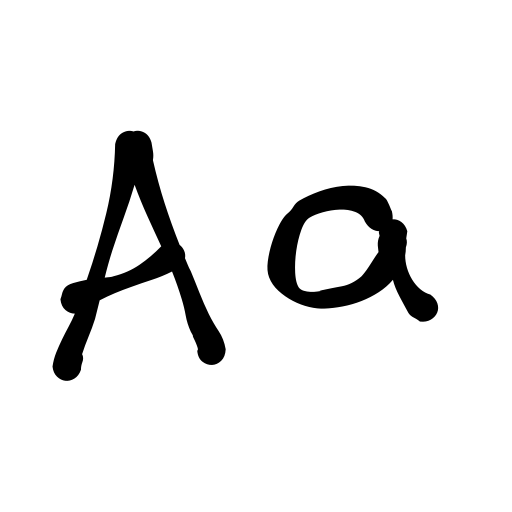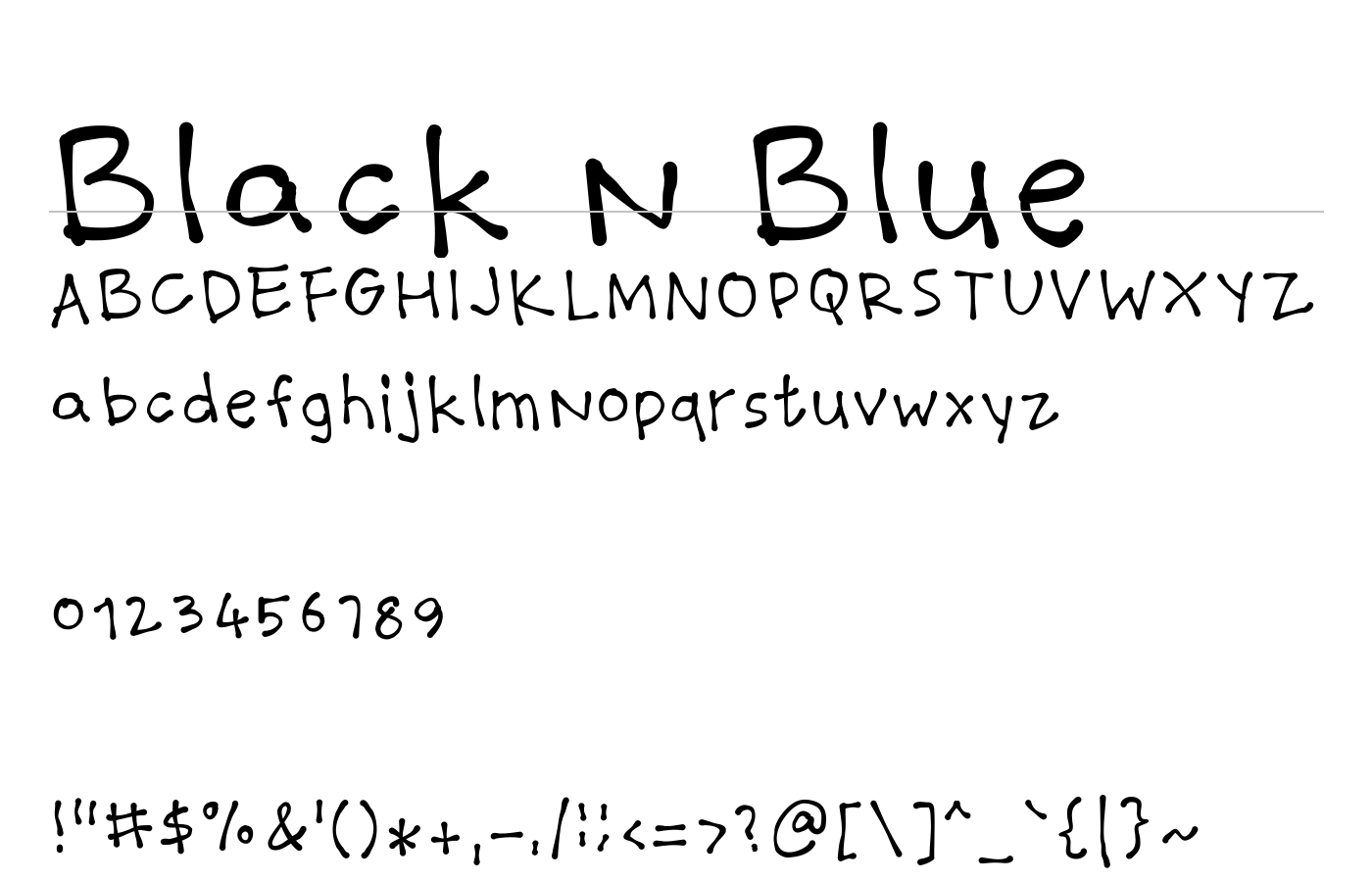
Black n Blue is a playful, casual handwritten sans serif font with a light weight and slightly irregular, friendly letterforms that resemble natural pen strokes. Its tall x-height and simple shapes make it easy to read, while the subtle quirks in characters add a personal, informal charm. This font works well for creative projects, children’s materials, and any design needing a warm, approachable vibe.
Black n Blue Font
About Black n Blue Font